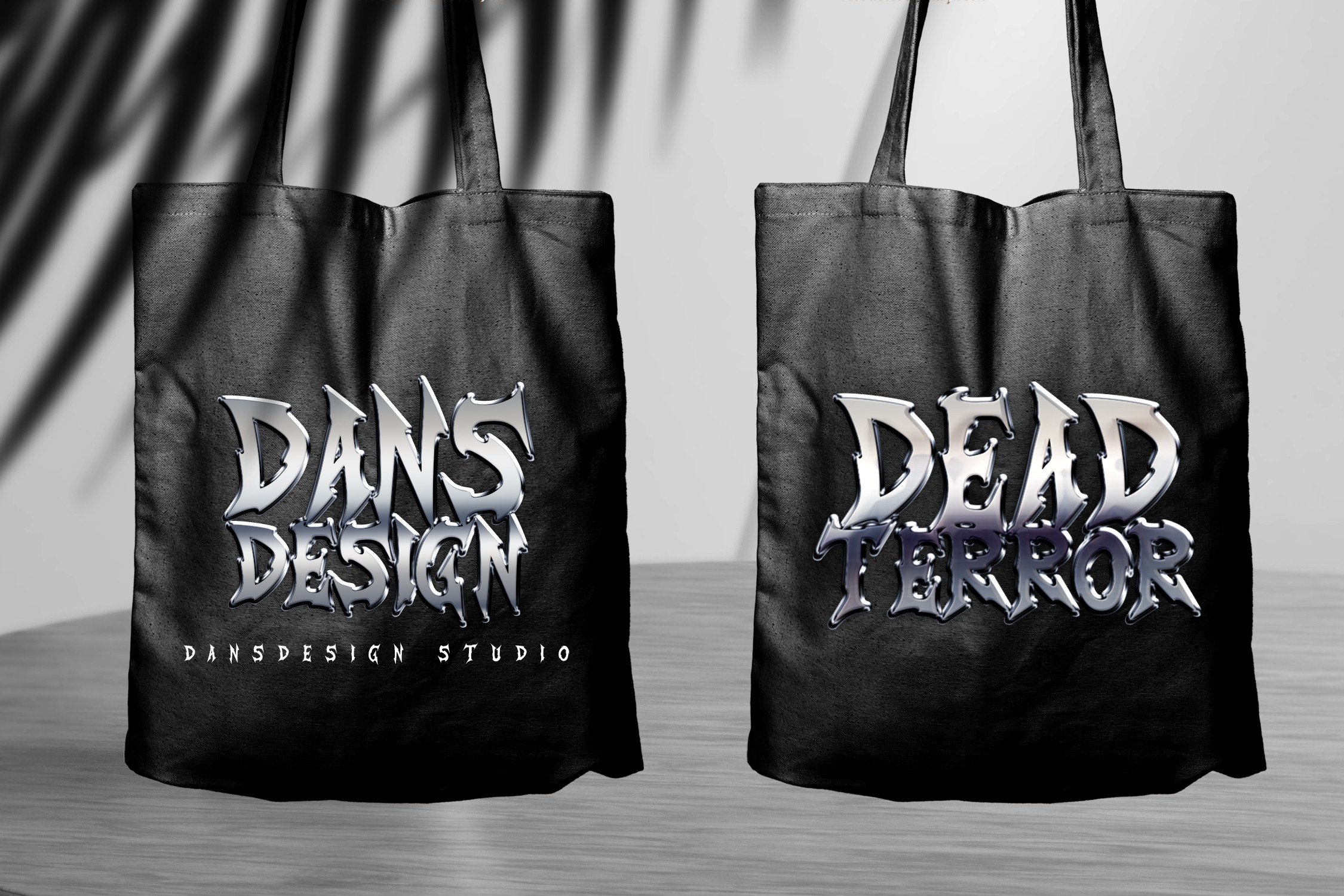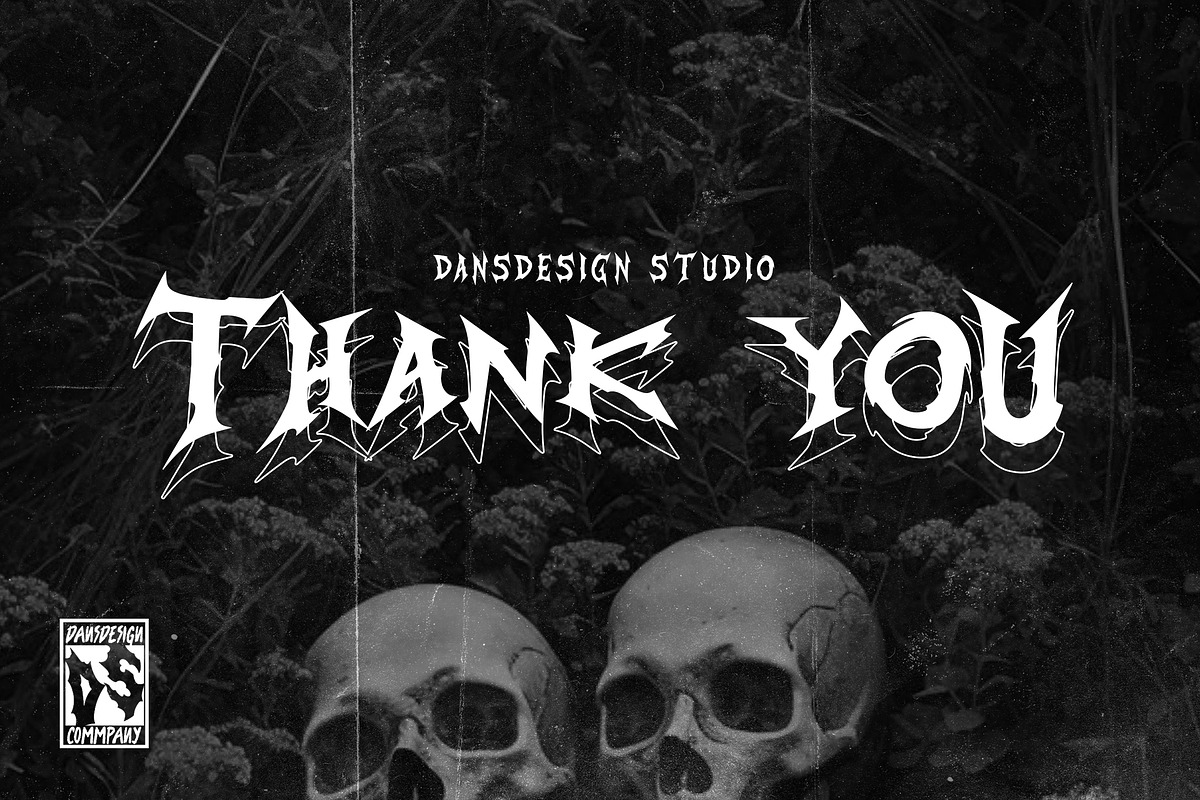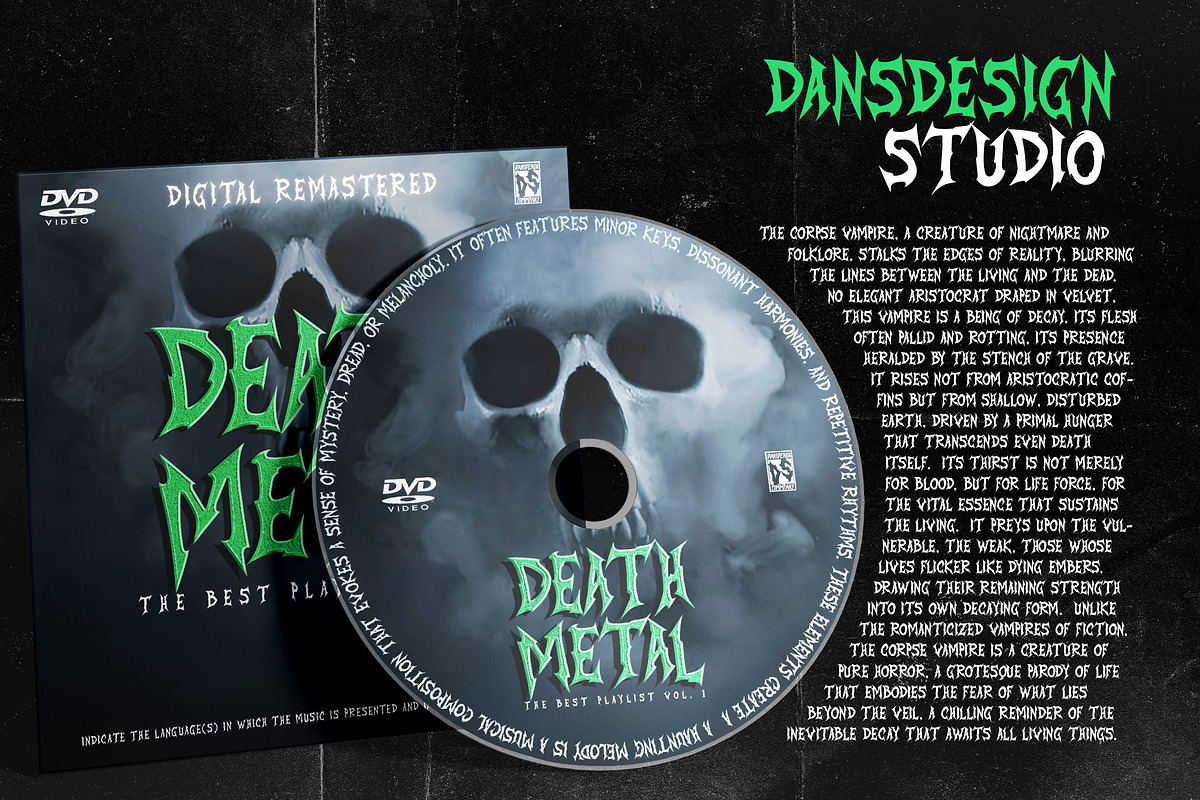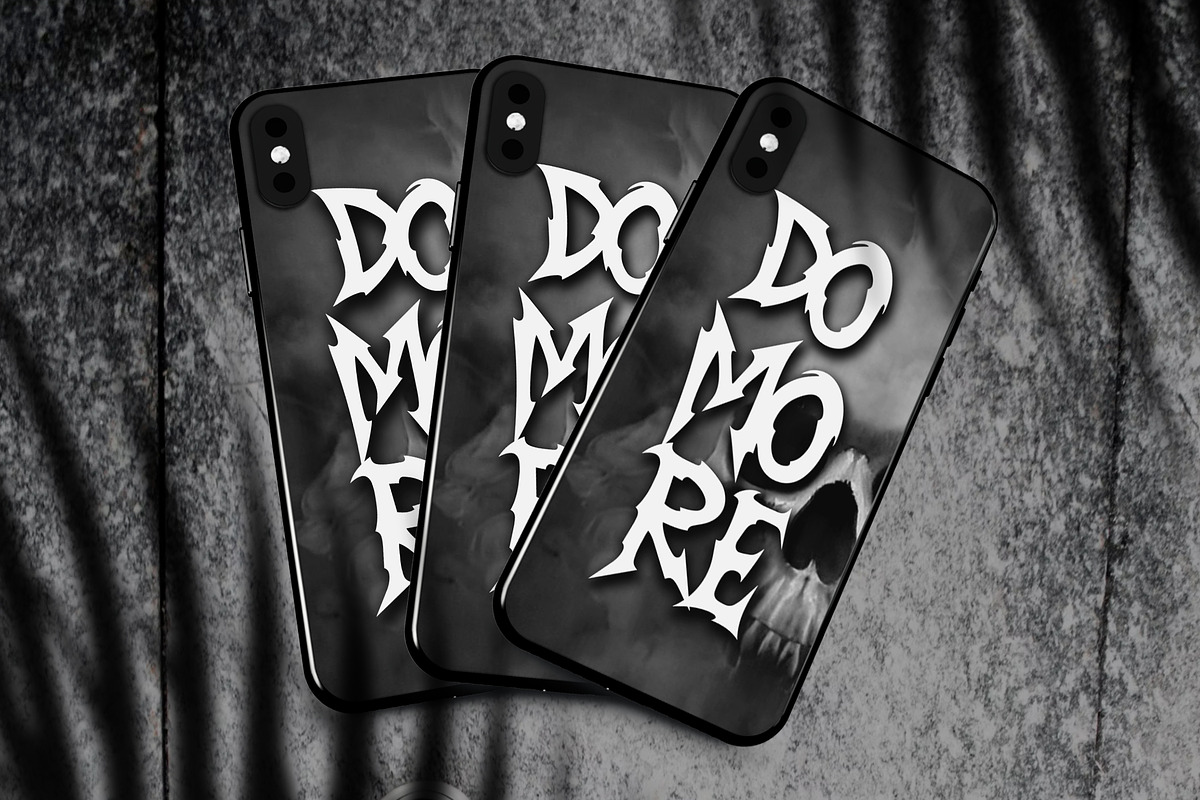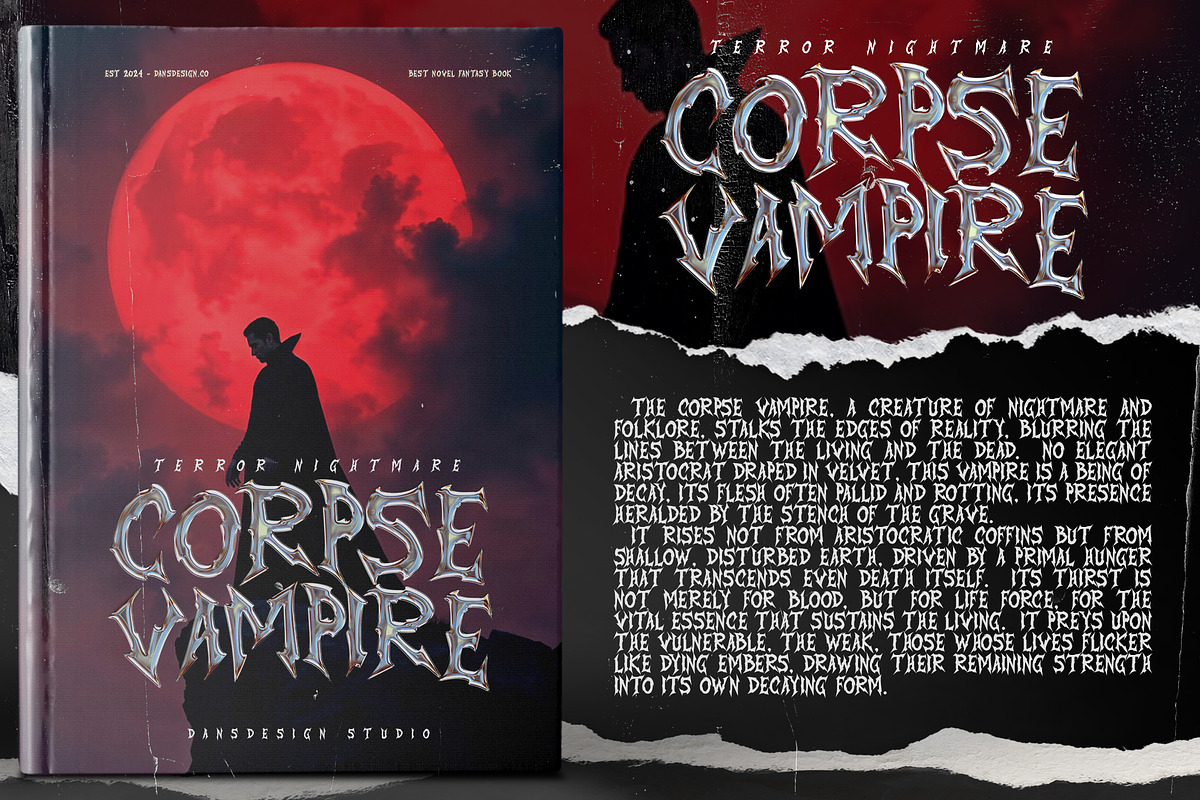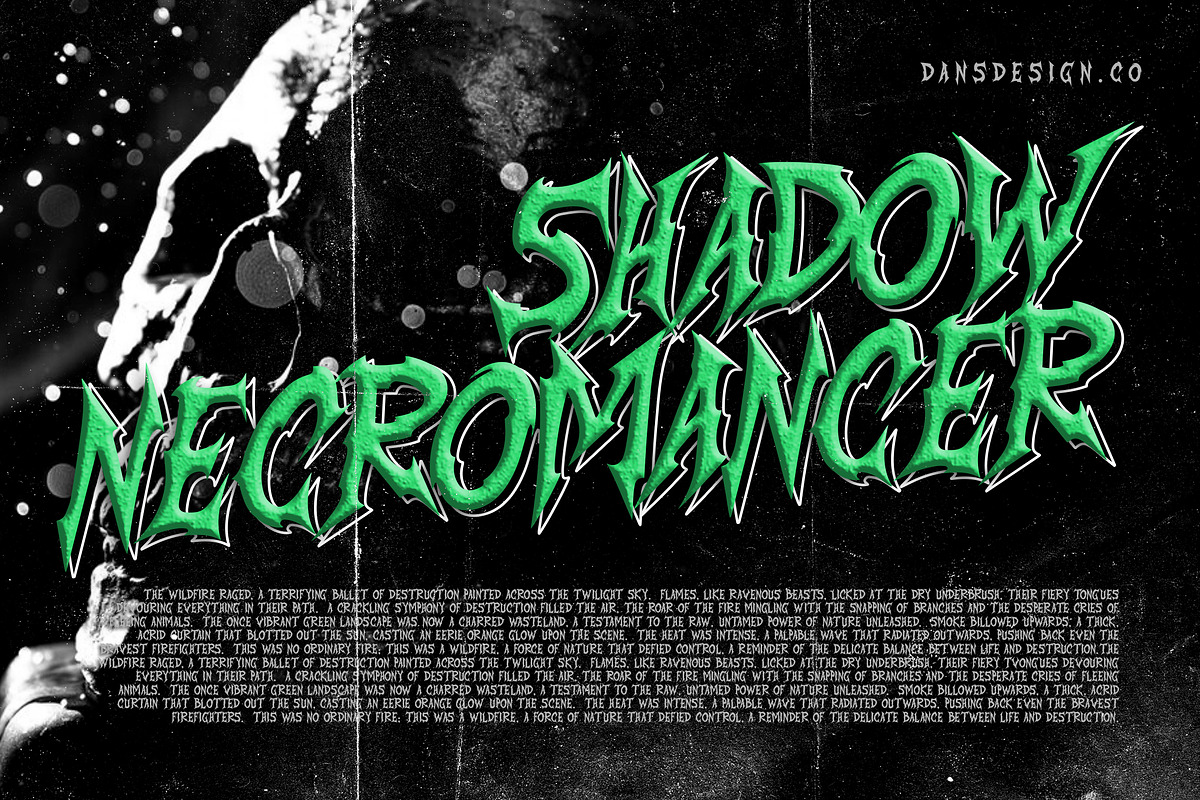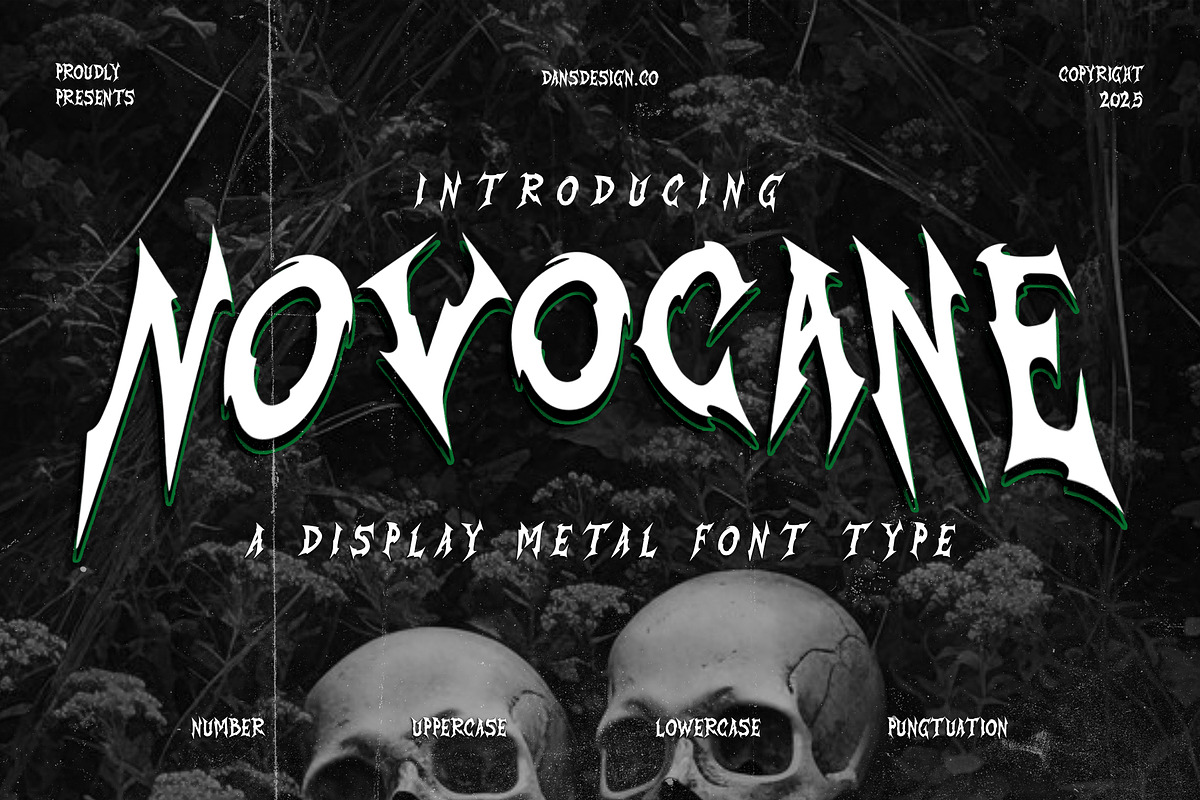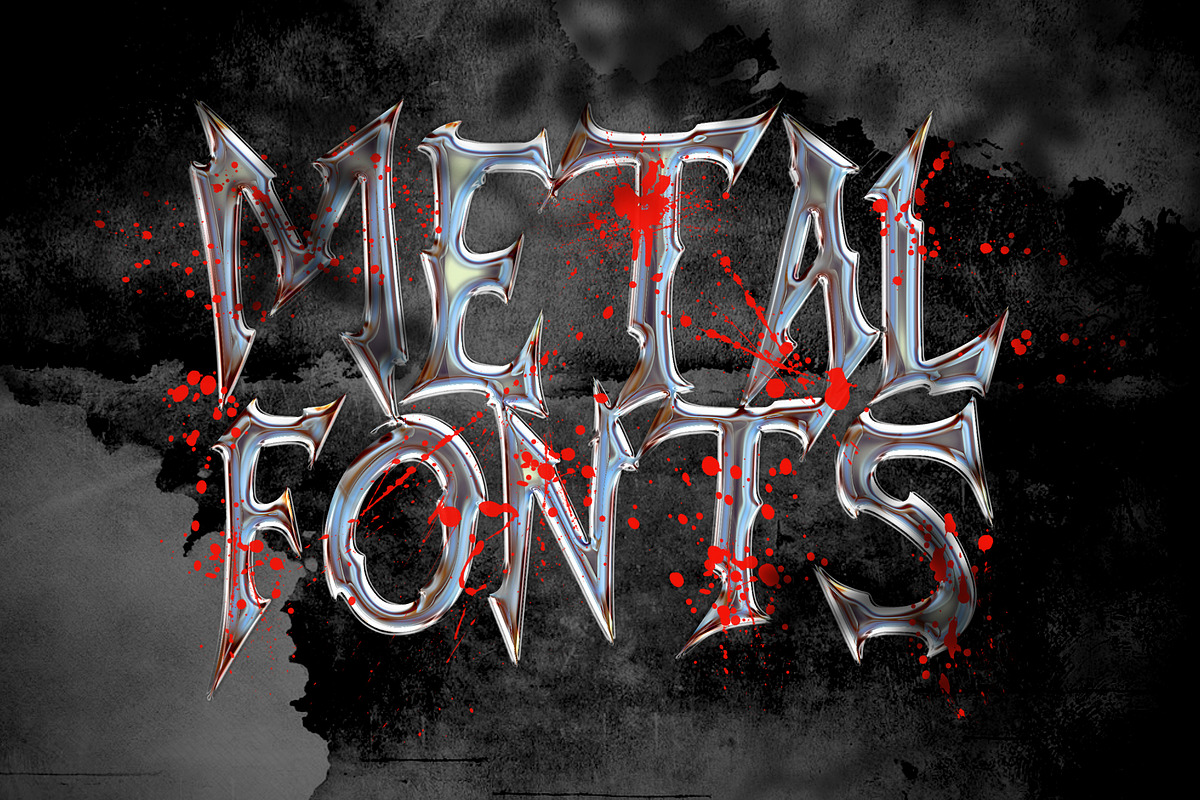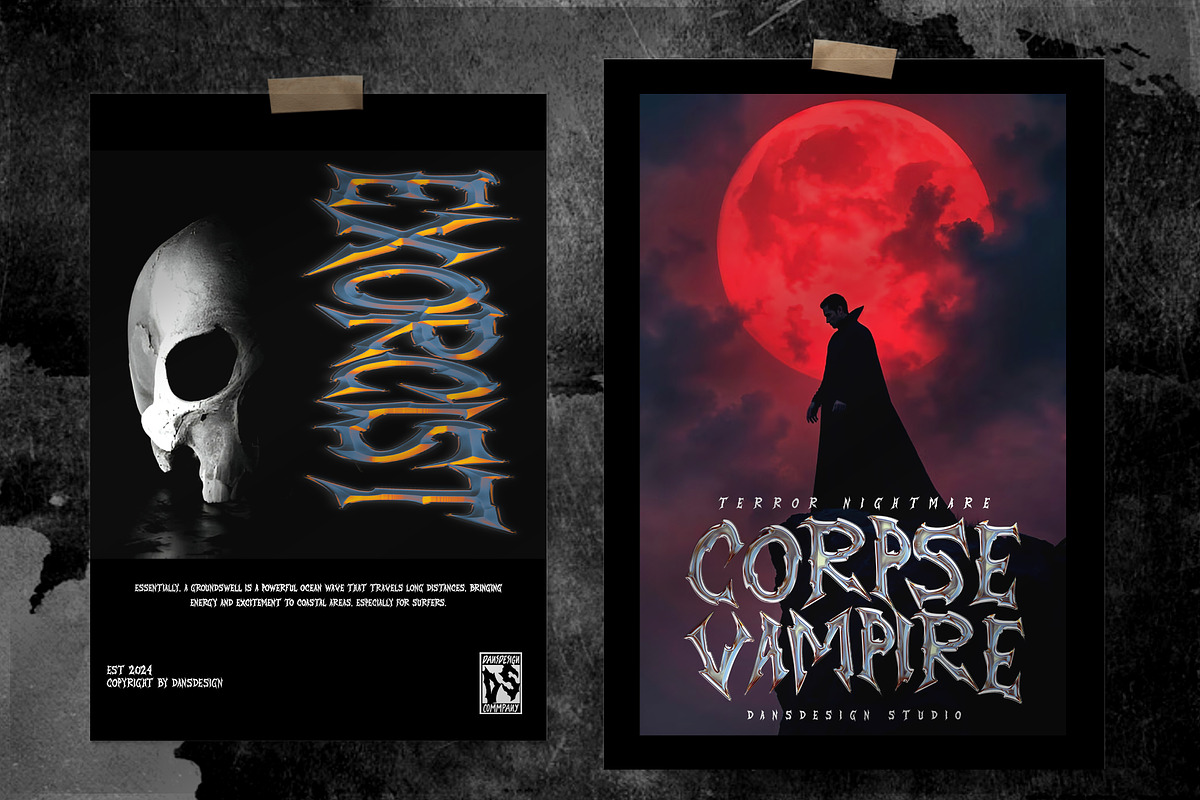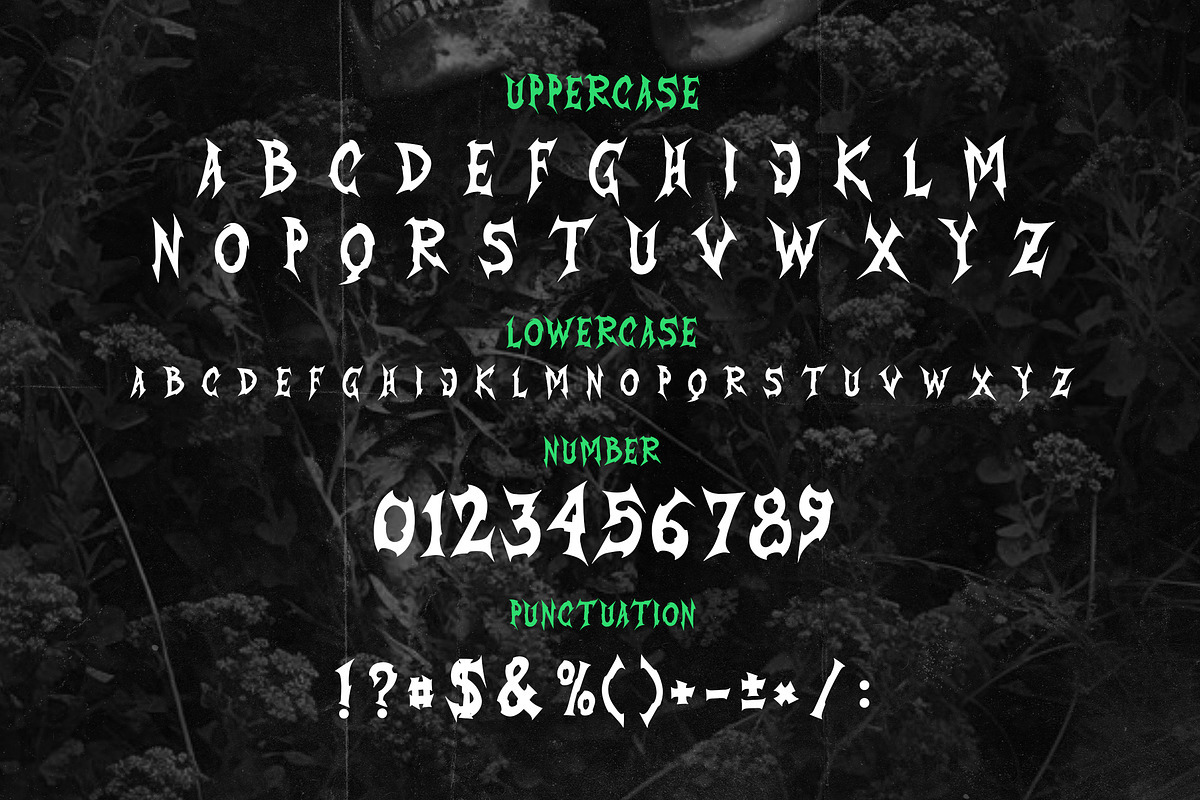
Novocane – Horror Metal Display Font
Novocane – Horror Metal Display Font with Sharp Shape
Novocane is a terrifyingly bold horror metal display font forged for darkness. With razor-sharp edges, sinister curves, and high-contrast design, this typeface drips with raw fear and chaos—perfect for horror movie titles, slasher posters, Halloween merch, and extreme visual storytelling.
Inspired by heavy metal lettering and underground horror zines, Novocane brings a deadly attitude to every word. Each character is shaped like a weapon, evoking blood, bone, and rebellion. It's not just a font—it’s a visual scream. Key Features:
Horror movie posters and trailers Halloween party invites and merchandise Metal band logos and album covers Haunted house branding and signage Creepy book covers, zines, and dark fantasy content
Dare to disturb the silence—Novocane is made for screams, shadows, and everything that lurks in the dark. Your horror designs will never be the same.